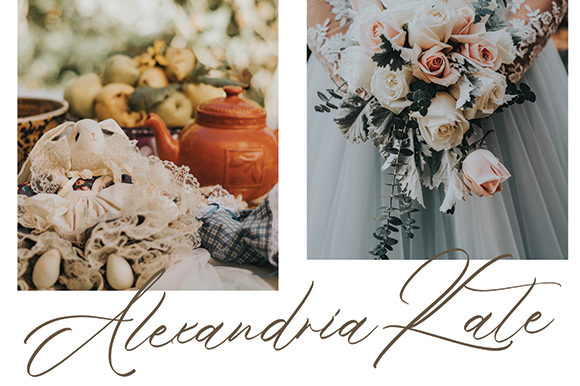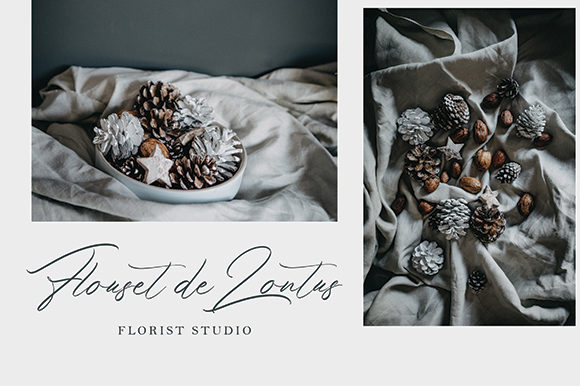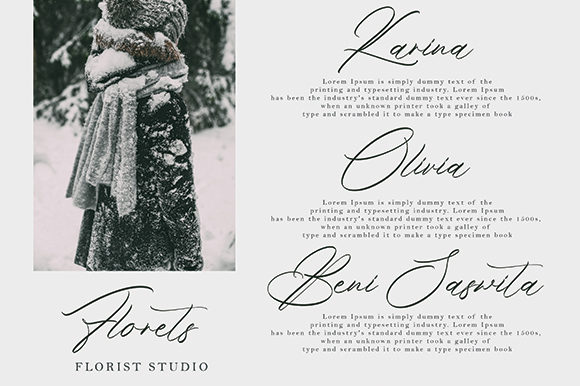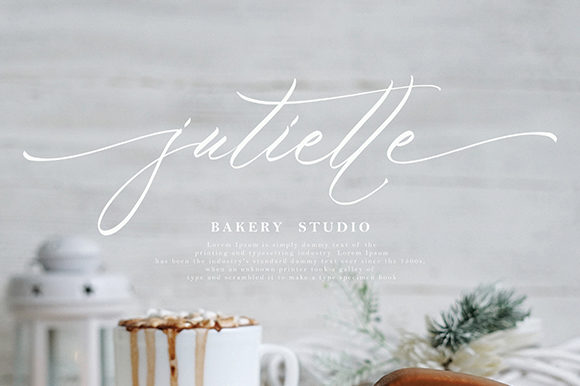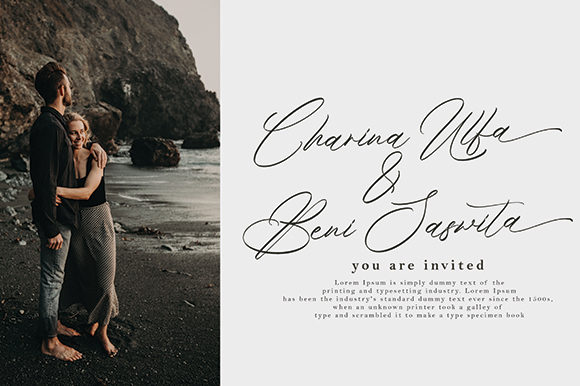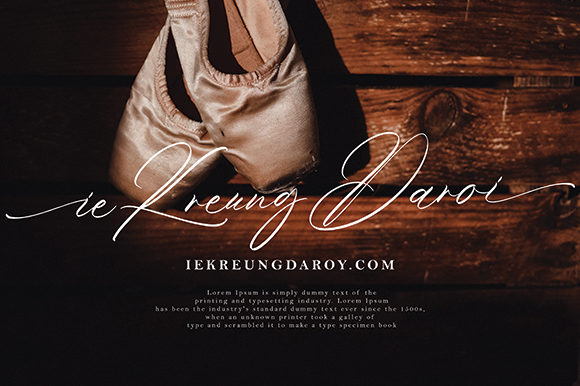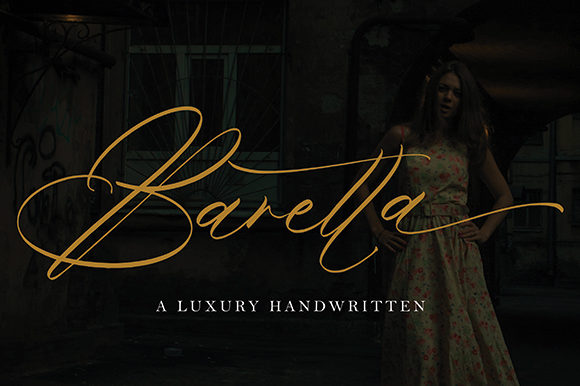
Baretta Font: Elevate Your Designs with Elegance and Magic
In the world of typography, a font can make or break a design. For crafters, designers, and artists, finding the perfect script font can be a daunting task. However, if you’re looking for a font that combines elegance, magic, and versatility, look no further than the Baretta Font. This beautiful script font is carefully crafted to add a touch of sophistication to any project, making it a must-have for anyone looking to elevate their designs.
The Charm of Baretta Font
Baretta is a magical script font that boasts an impressive range of features, making it perfect for a wide range of creative projects. Whether you’re designing for Instagram, creating calligraphy scripts for DIY projects, or working on a professional branding campaign, Baretta has got you covered. Its elegant and refined strokes are sure to turn any creative idea into a true piece of art.
What Makes Baretta Special?
So, what sets Baretta apart from other script fonts? Here are a few key features that make it a standout:
- PUA Encoding: Baretta is PUA (Private Use Area) encoded, which means you can access all the glyphs and swashes with ease. This feature makes it incredibly easy to use and customize the font to suit your needs.
- Elegant and Refined: Baretta’s strokes are carefully crafted to exude elegance and sophistication. Whether you’re creating a logo, social media graphics, or a branding campaign, this font is sure to impress.
- Versatile: From Instagram designs to calligraphy scripts, Baretta is a versatile font that can be used for a wide range of creative projects.
Why Designers and Crafters Love Baretta
Baretta has quickly become a favorite among designers and crafters, and for good reason. Here are a few reasons why:
- Easy to Use: With its PUA encoding, Baretta is incredibly easy to use, even for those who are new to font design.
- Highly Customizable: With a wide range of glyphs and swashes at your disposal, you can customize Baretta to suit your unique design needs.
- Unique and Eye-Catching: Baretta’s elegant strokes and refined features make it a standout font that’s sure to grab attention.
Using Baretta for Your Creative Projects
So, how can you use Baretta for your creative projects? Here are a few ideas to get you started:
- Instagram Designs: Use Baretta to create stunning Instagram graphics, from quotes and captions to stories and posts.
- Calligraphy Scripts: Baretta is perfect for calligraphy scripts, making it a great choice for DIY projects, such as handmade cards and invitations.
- Branding Campaigns: With its elegant and refined features, Baretta is a great choice for branding campaigns, logos, and advertising materials.
In conclusion, Baretta Font is a magical script font that offers a unique combination of elegance, magic, and versatility. With its PUA encoding, elegant strokes, and refined features, it’s perfect for a wide range of creative projects. Whether you’re a designer, crafter, or artist, Baretta is a must-have font that’s sure to elevate your designs and turn your creative ideas into true works of art.